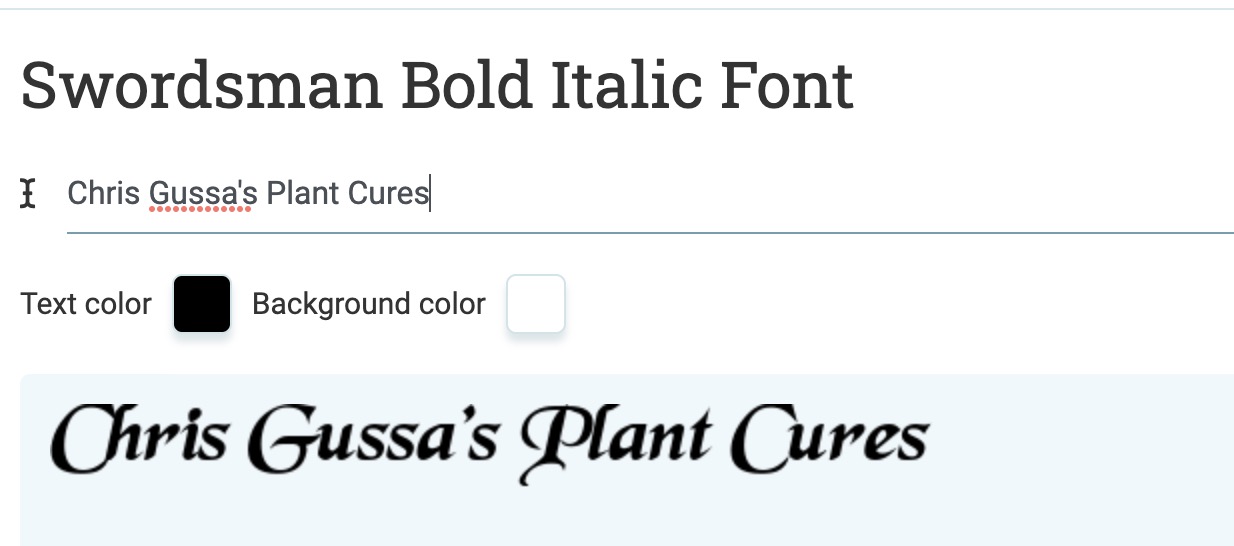
Anyone have a clue what this font is or something that is close to it?
Swordsman Bold Italic. The publisher, Swift International appears to be a games company. The native kerning looks unpolished and will need some adjustment.
The font is not listed with WhatFontIs or FontSquirrel or any of the other main font finders as far as I could tell. I used one that has a reputation for piracy and nasty unwanted files so I don’t download from it, but it does have access to some fonts the others don’t. I won’t be sharing the link.
I see that SWFTE International Ltd allegedly ripped off a lot of typefaces particularly from Bitstream which may have also allegedly done the same from Linotype. I highly doubt a licensed version can be found anywhere.
I’ve always known this as Black Chancery